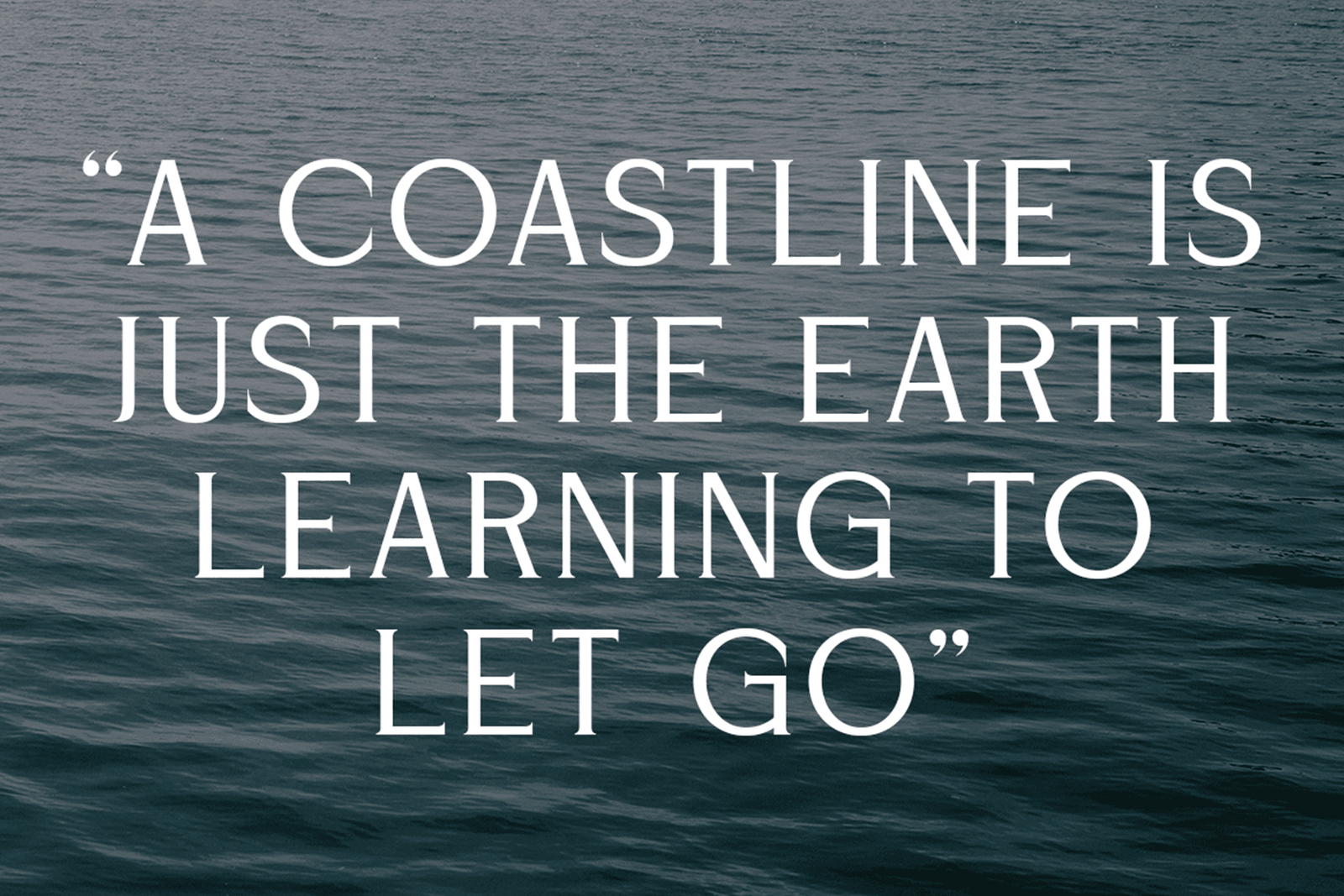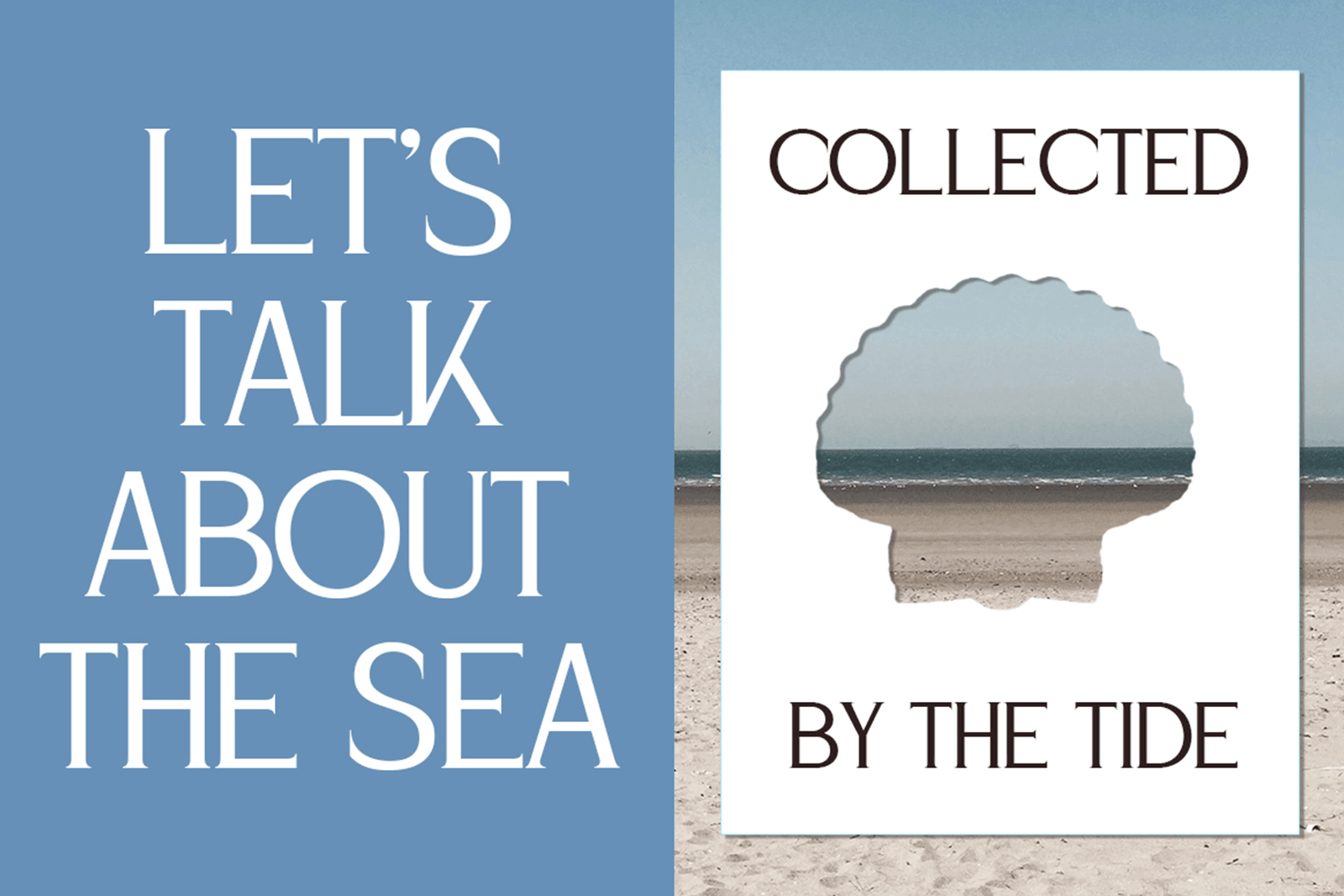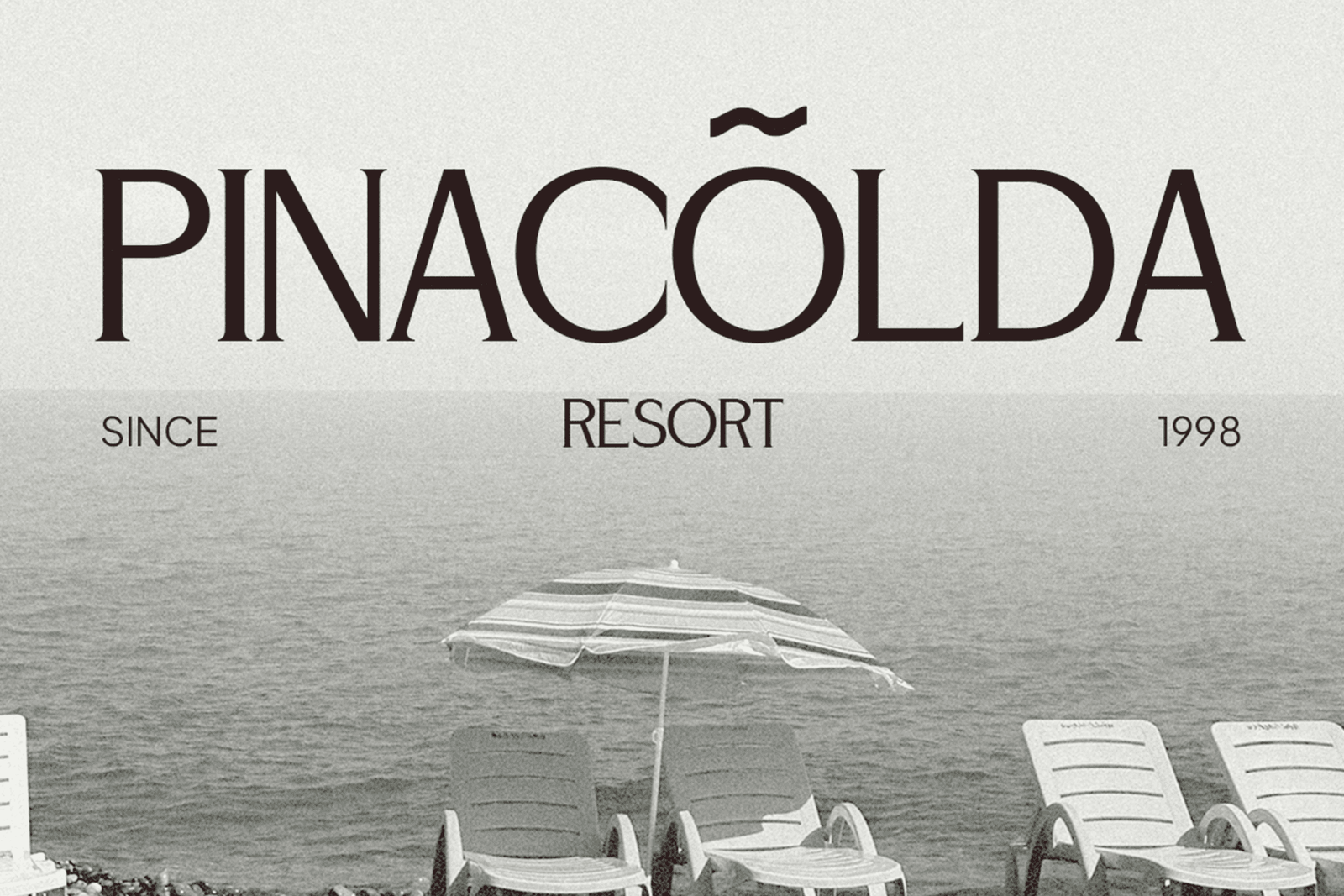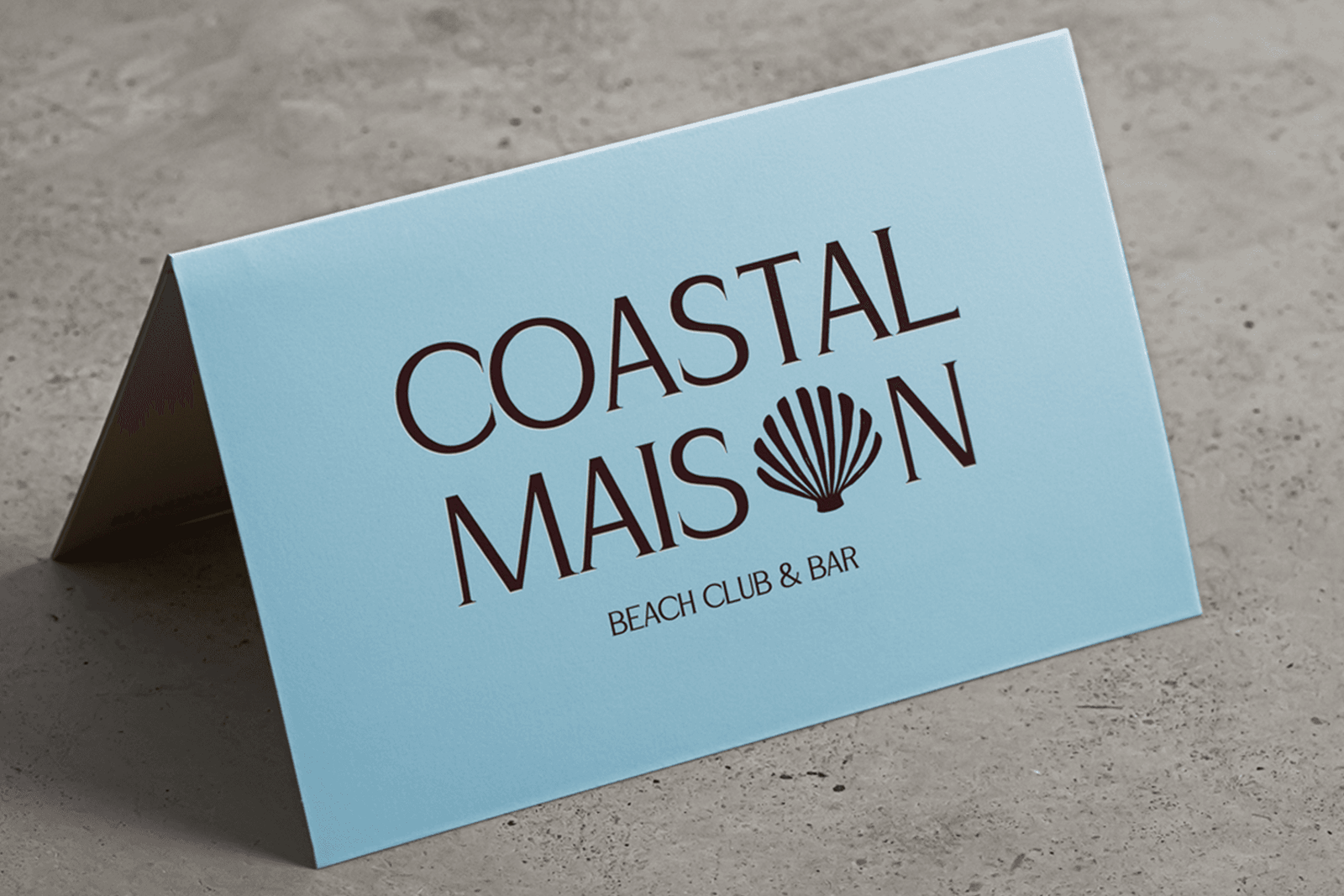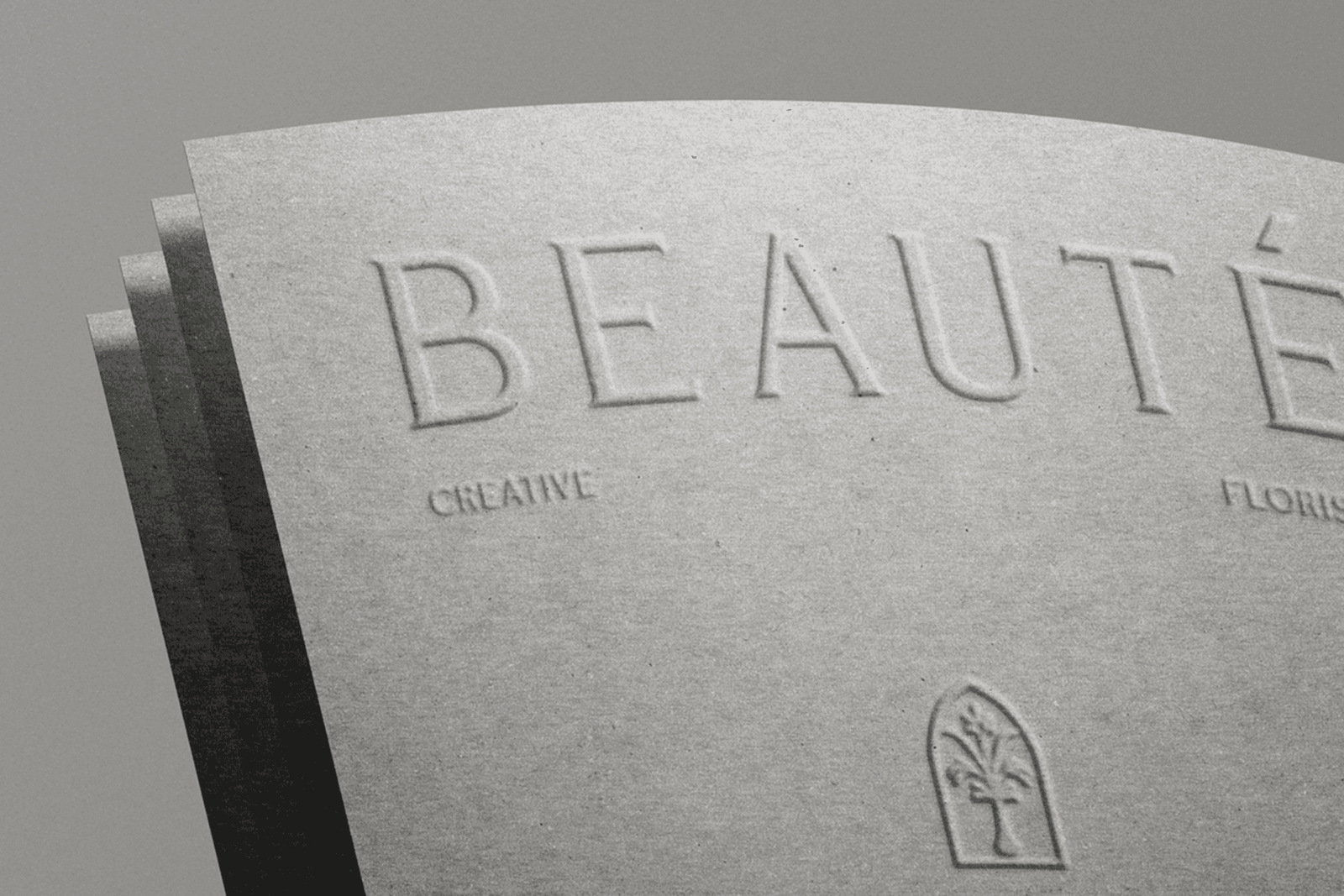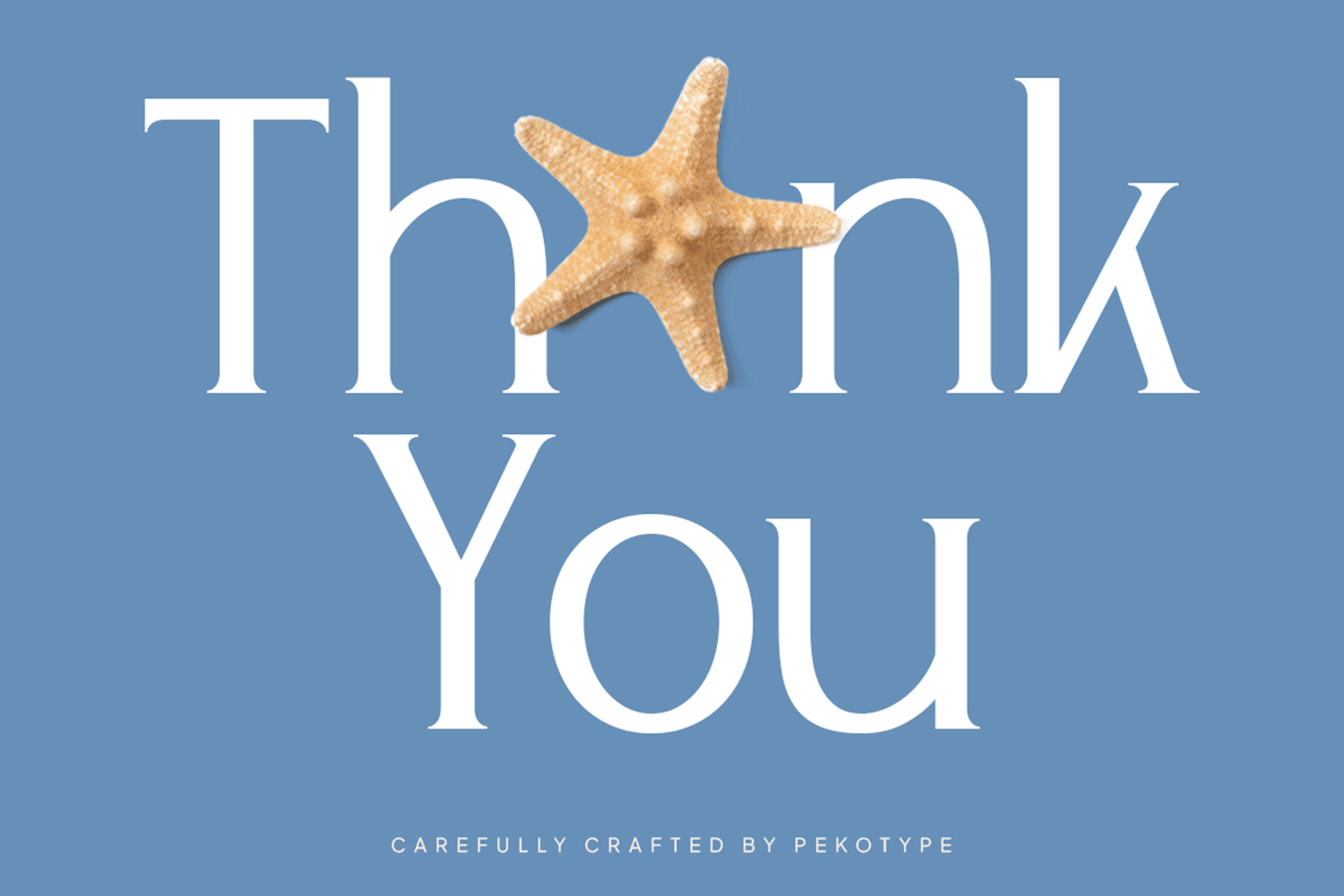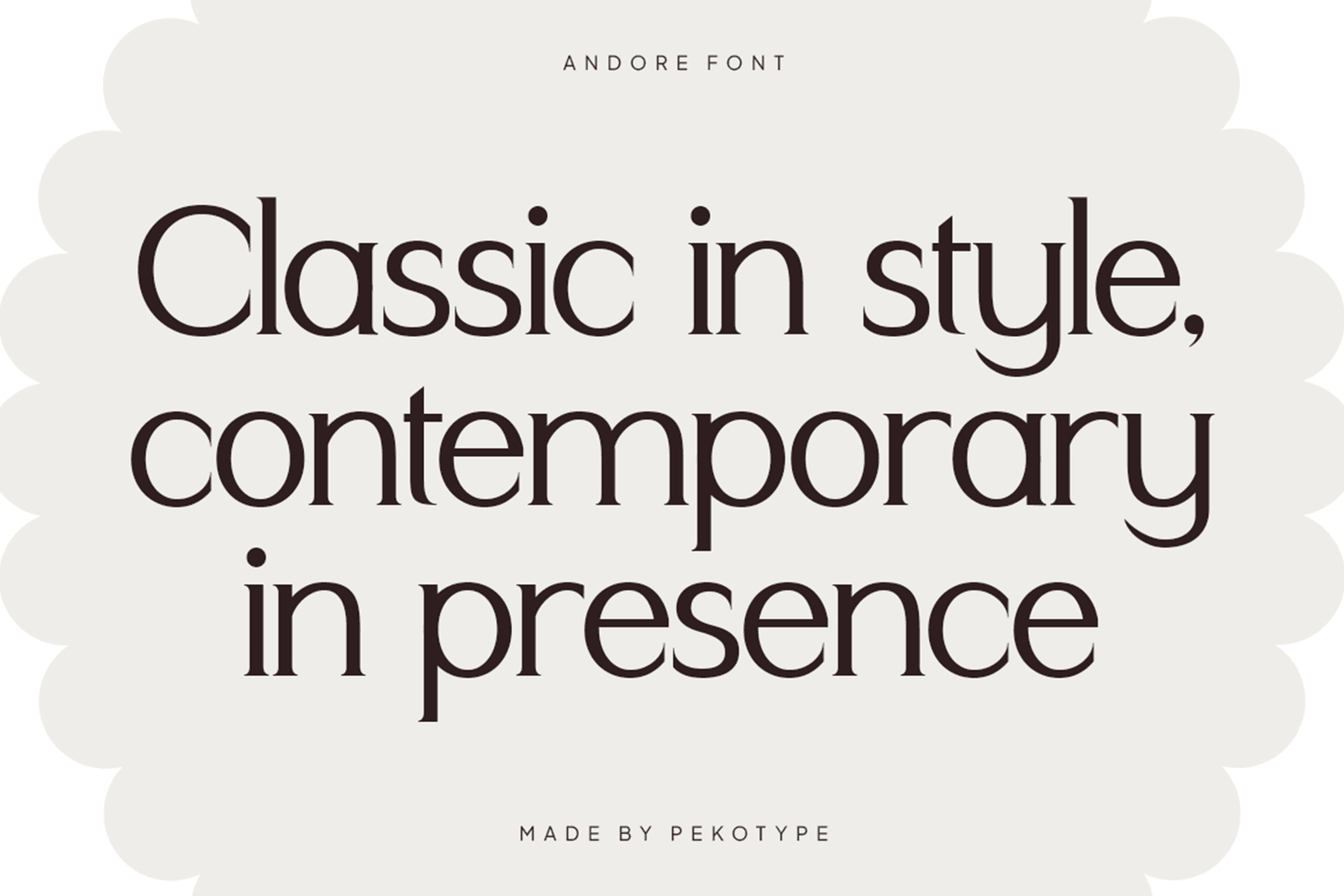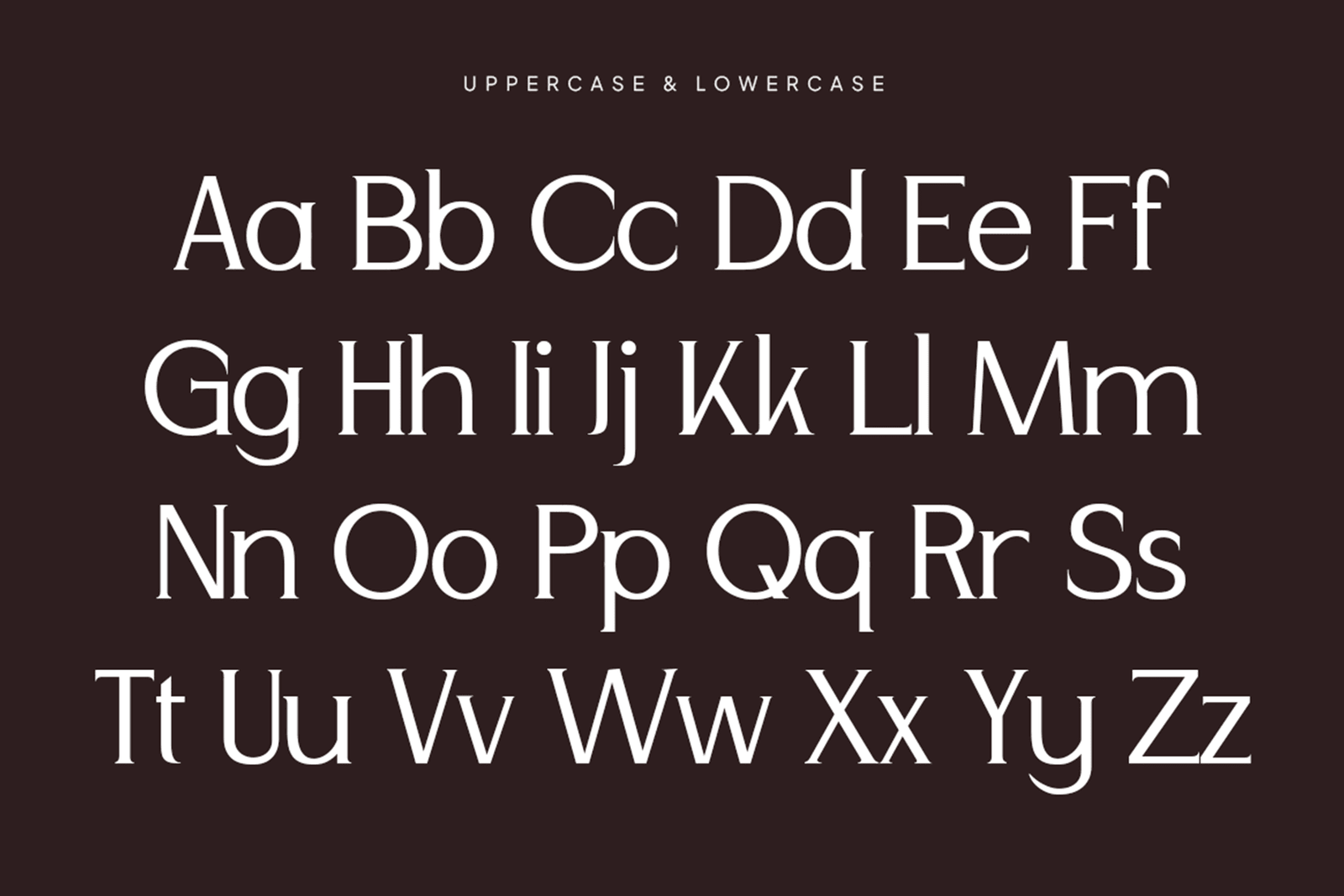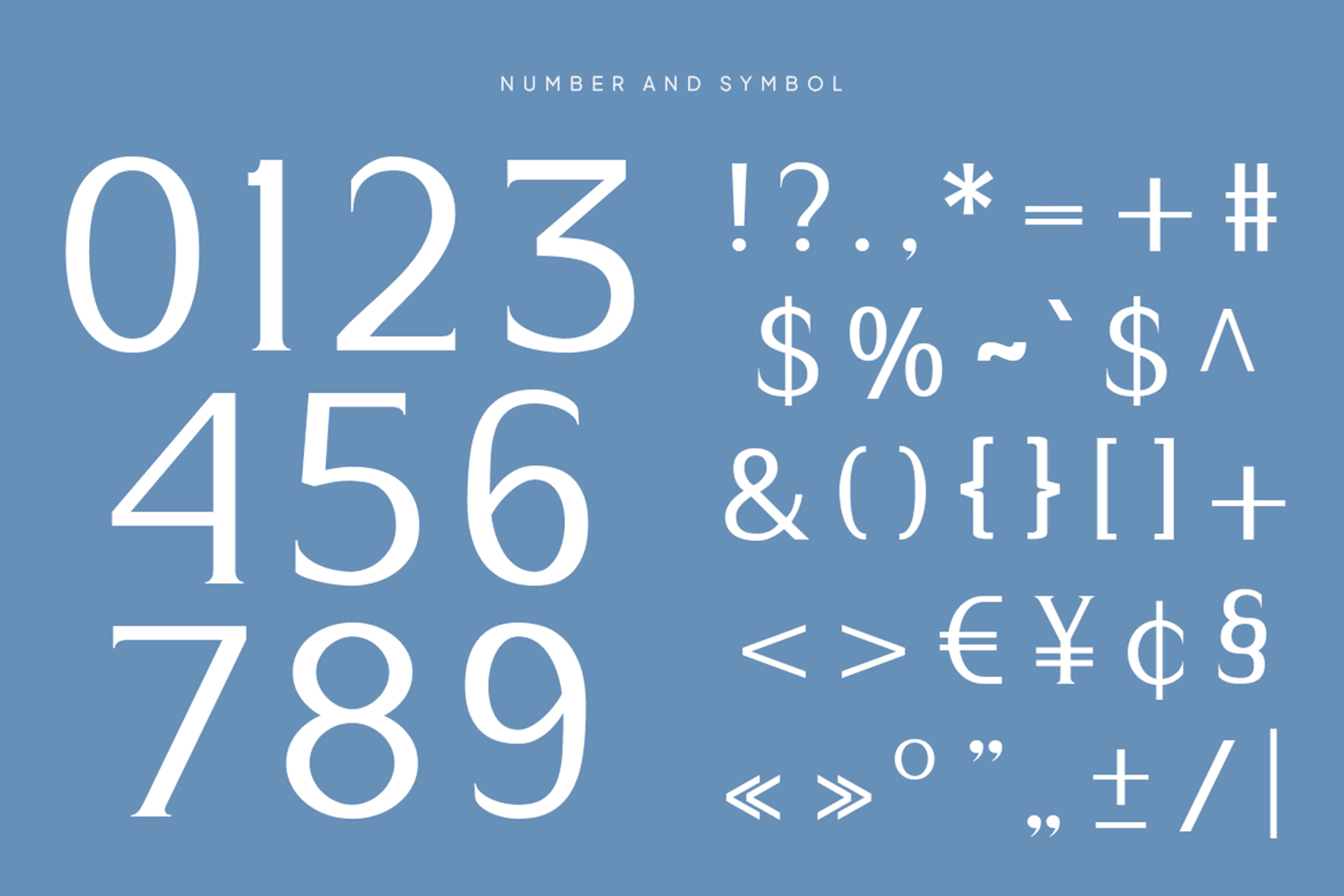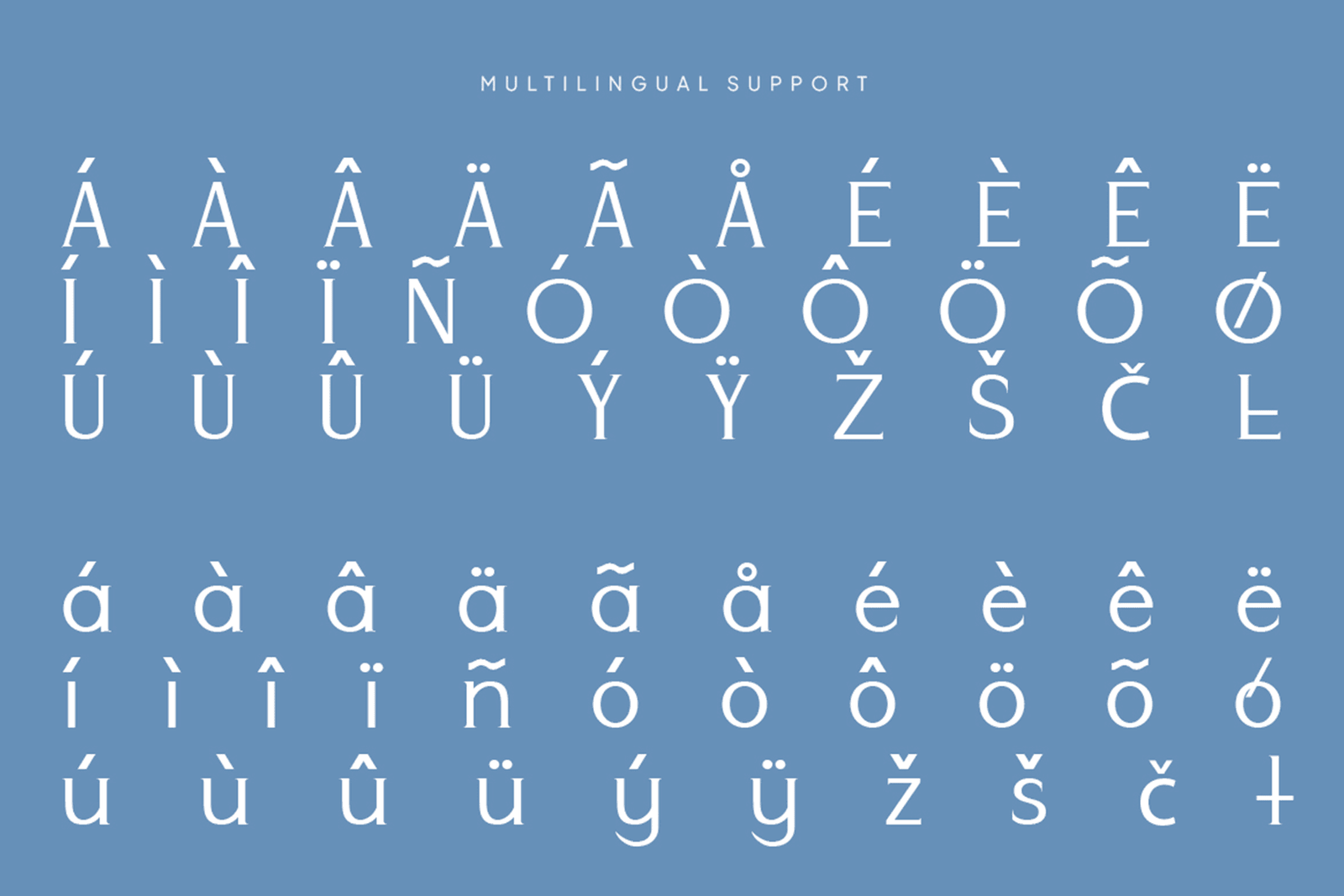
ANDORE Font is a modern serif font designed to bring a touch of elegance to your work. Its smooth curves and well-balanced letterforms create a look that feels classic, clean, and effortlessly stylish. Use ANDORE for logos, branding, invitations, menus, editorials, packaging, social media graphics, and creative projects that need a graceful and professional appearance. It’s a versatile font that works beautifully across many design styles.
ANDORE Font is an elegant modern serif typeface designed to bring a refined and stylish look to your creative projects. Its smooth curves, balanced proportions, and graceful details create a classic appearance that still feels fresh and contemporary. ANDORE is sophisticated without looking overly formal, making it suitable for many branding and editorial styles.
This font works beautifully for logos, fashion branding, beauty products, wedding invitations, menus, magazines, packaging, and social media graphics. Its clean serif details can make a brand name feel premium while keeping the overall design clear and approachable. ANDORE is also a great choice for boutique stores, resorts, restaurants, skincare brands, creative studios, and lifestyle businesses.
Use ANDORE for headlines, product names, short taglines, editorial titles, and elegant wordmarks. The font looks especially attractive in larger sizes, where its smooth shapes and distinctive details can be seen clearly. It can also be paired with a clean sans-serif font for body text to create a balanced and professional layout.
ANDORE includes uppercase and lowercase letters, numbers, symbols, punctuation, multilingual characters, and elegant ligatures. The uppercase letters give a confident and polished impression, while the lowercase characters feel softer and more relaxed. The ligatures add a unique touch to selected letter combinations and help create custom-looking logos or headlines.
ANDORE Font is a versatile choice for designers who want elegance, clarity, and timeless character. From luxury branding and invitations to packaging, editorials, menus, and social media, ANDORE helps every project feel polished, graceful, and professionally crafted.